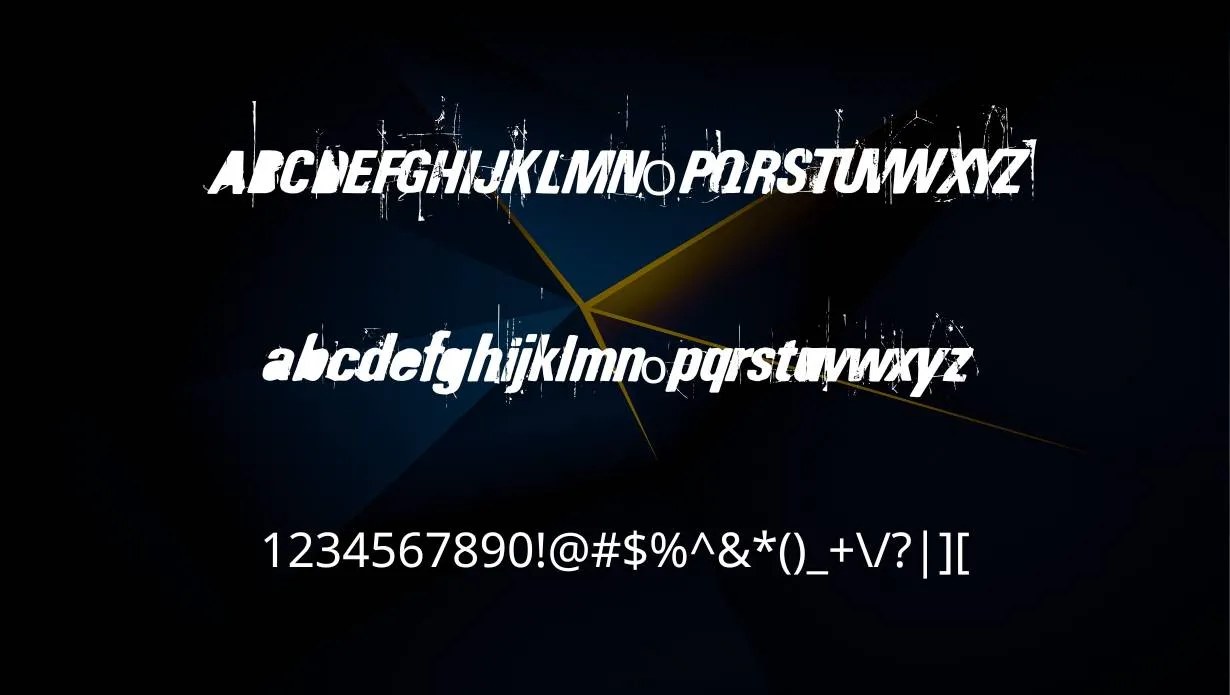
Kabtv Font is inspired by retro design and is often chosen for projects related to nostalgia and vintage aesthetics. It adds a touch of the past and a sense of vintage charm to your designs.
Kabtv Font Family
| Name | Kabtv Font |
| Designer | Unknown |